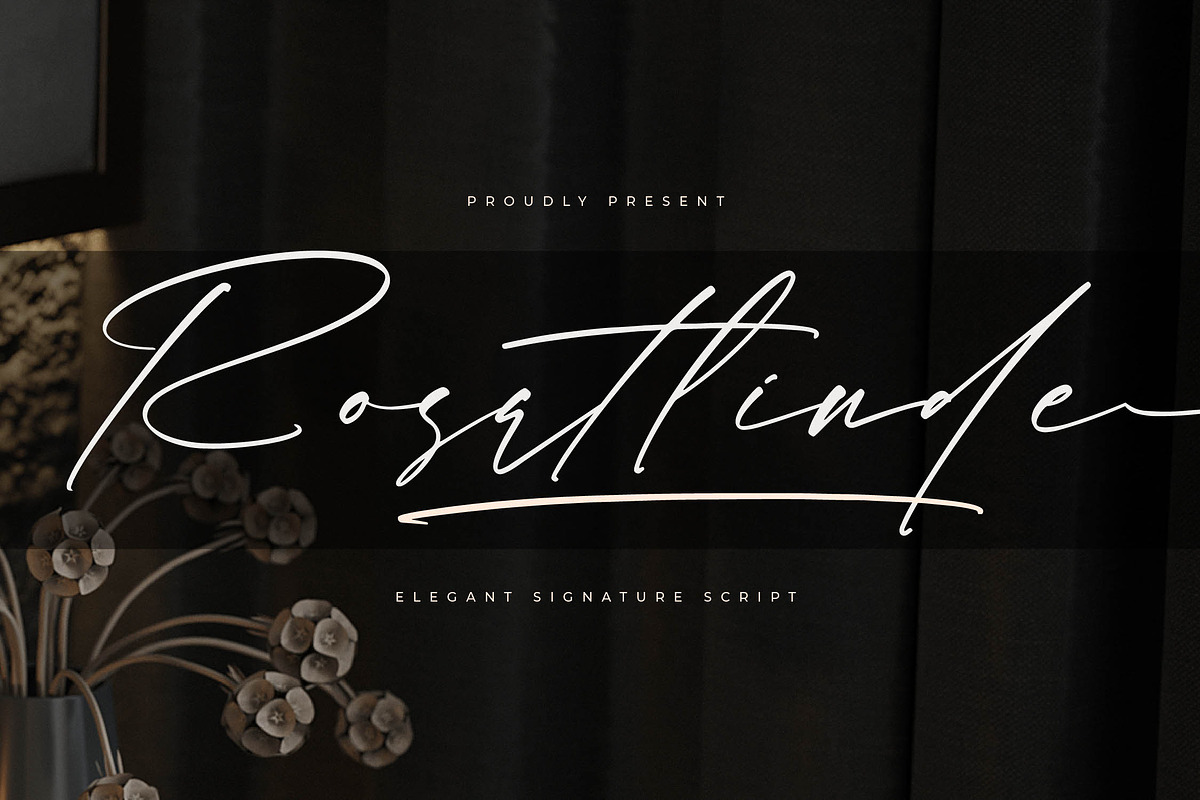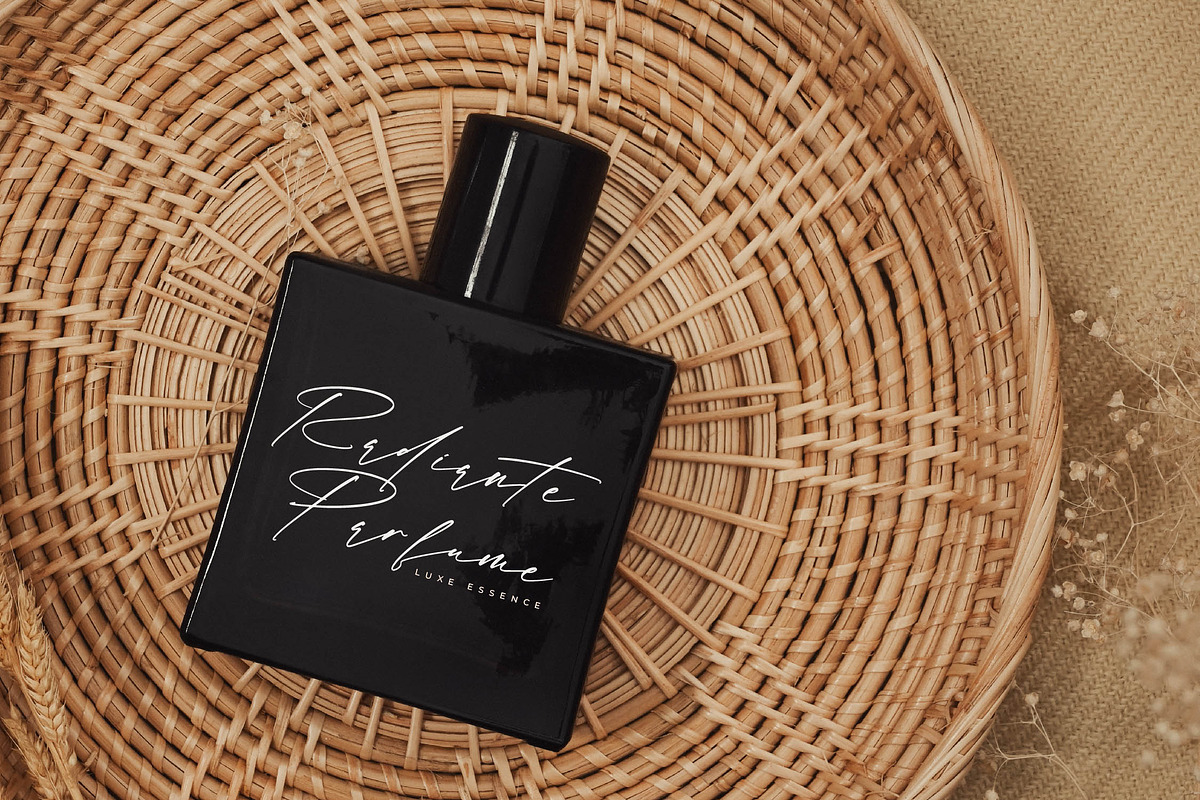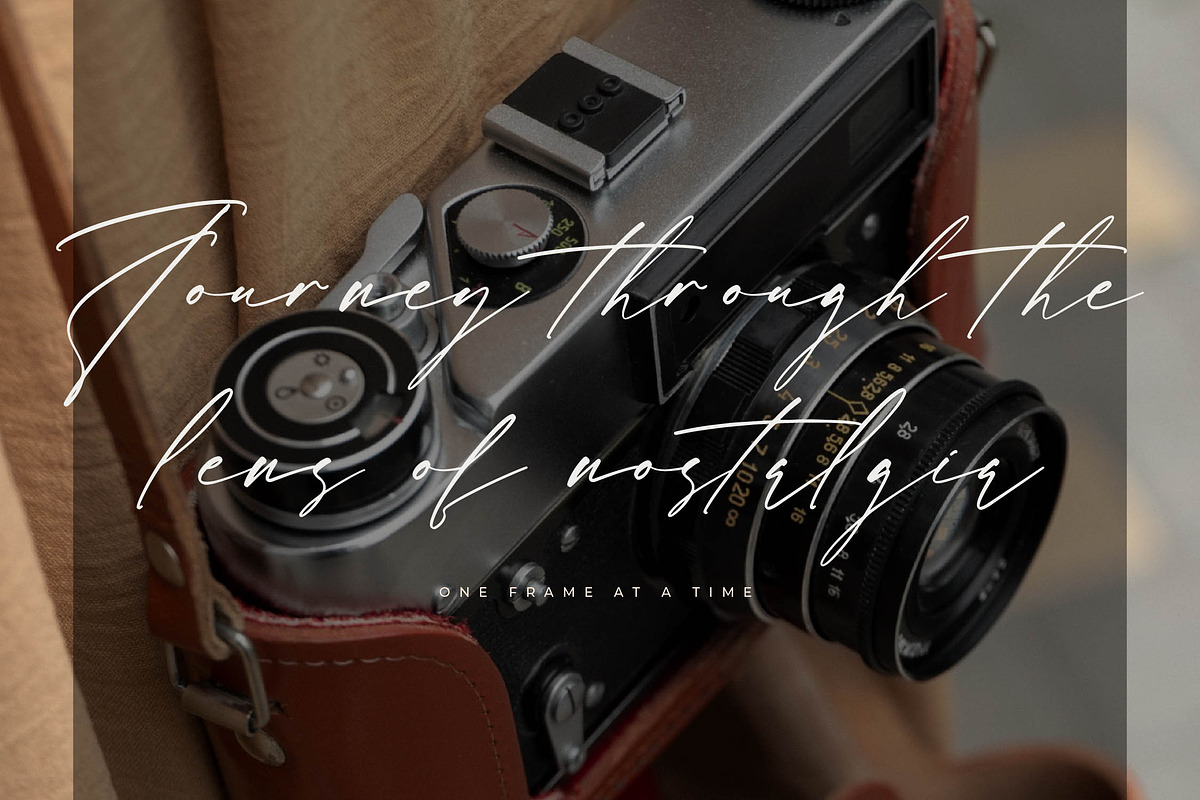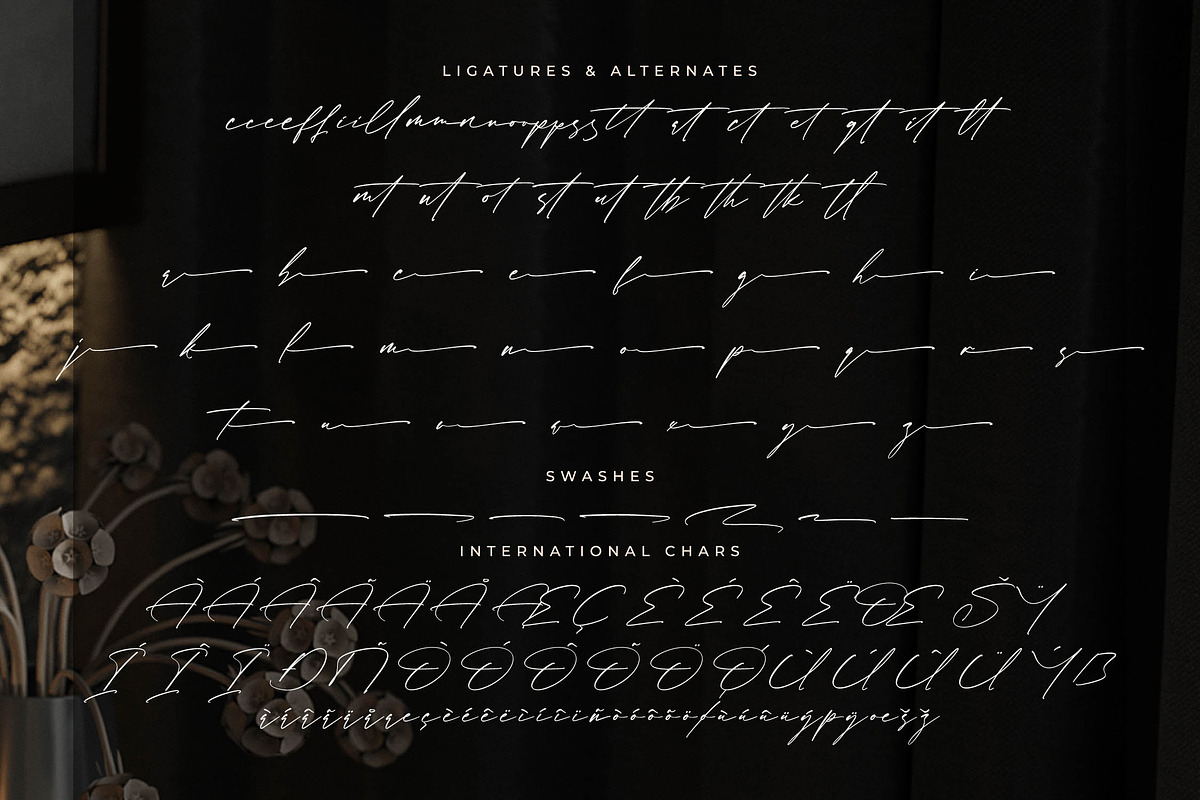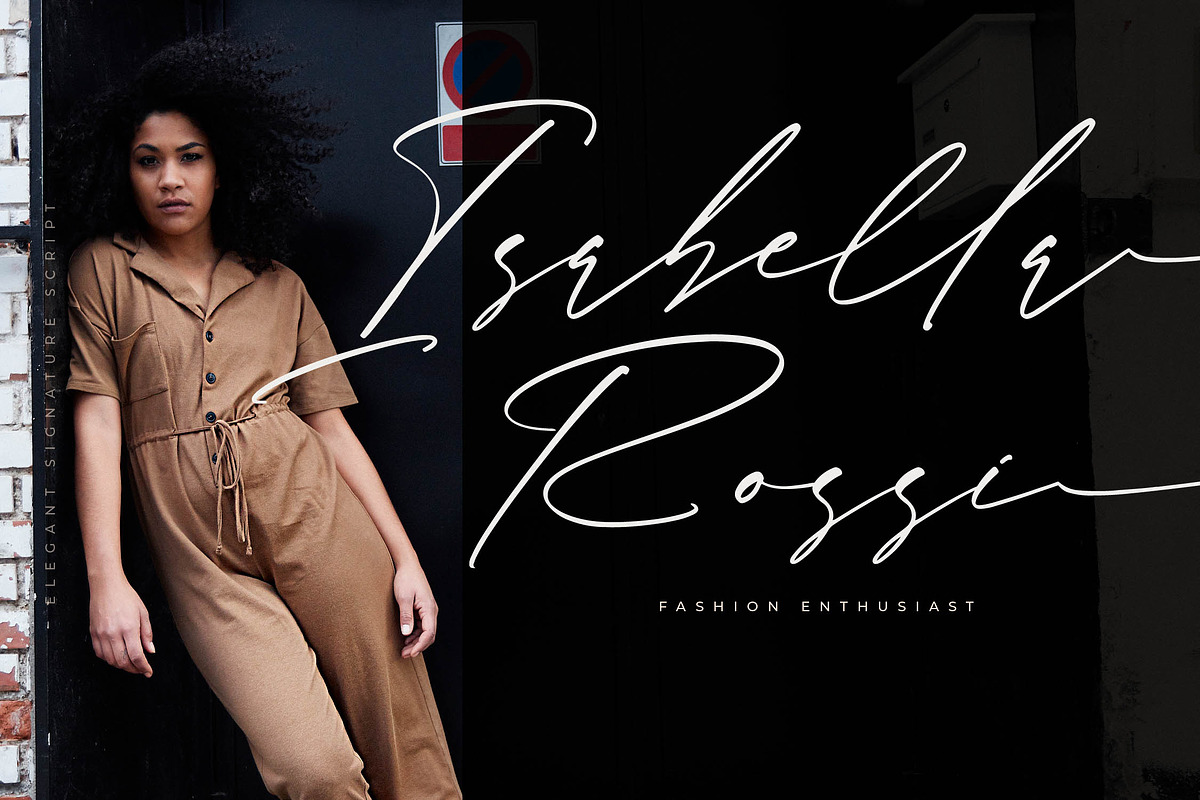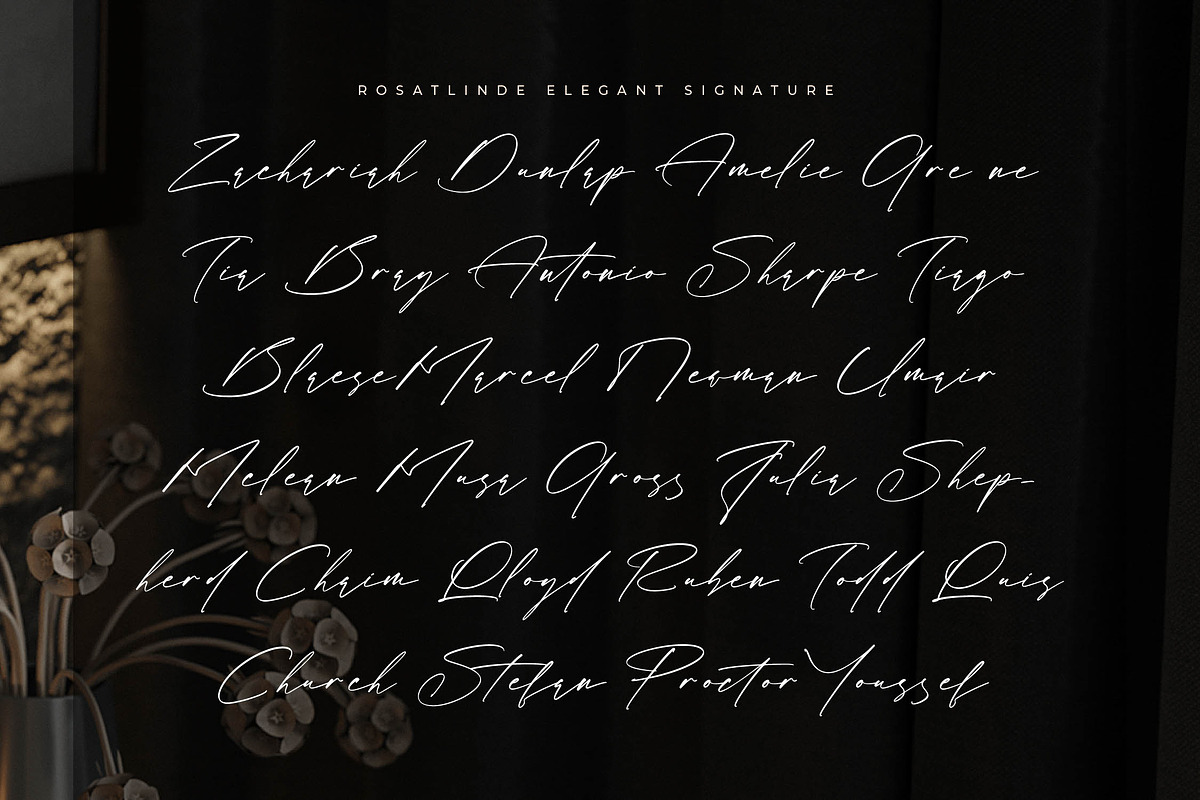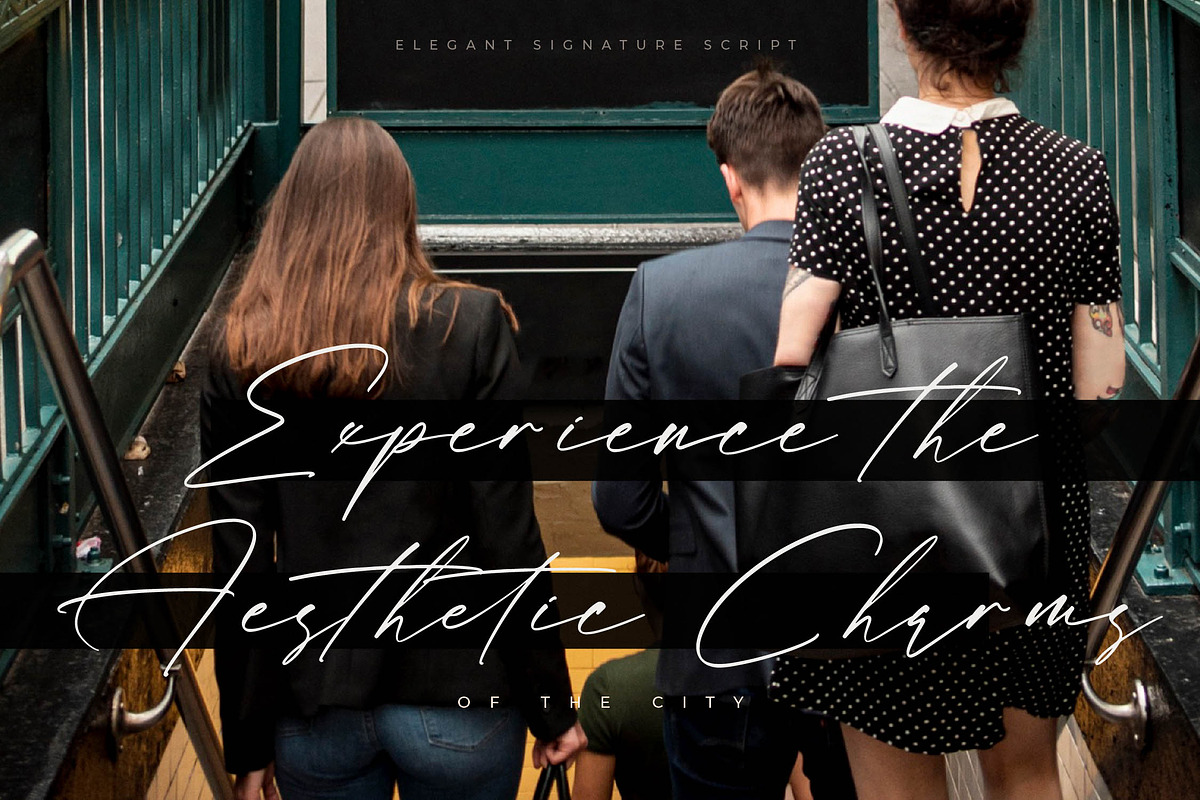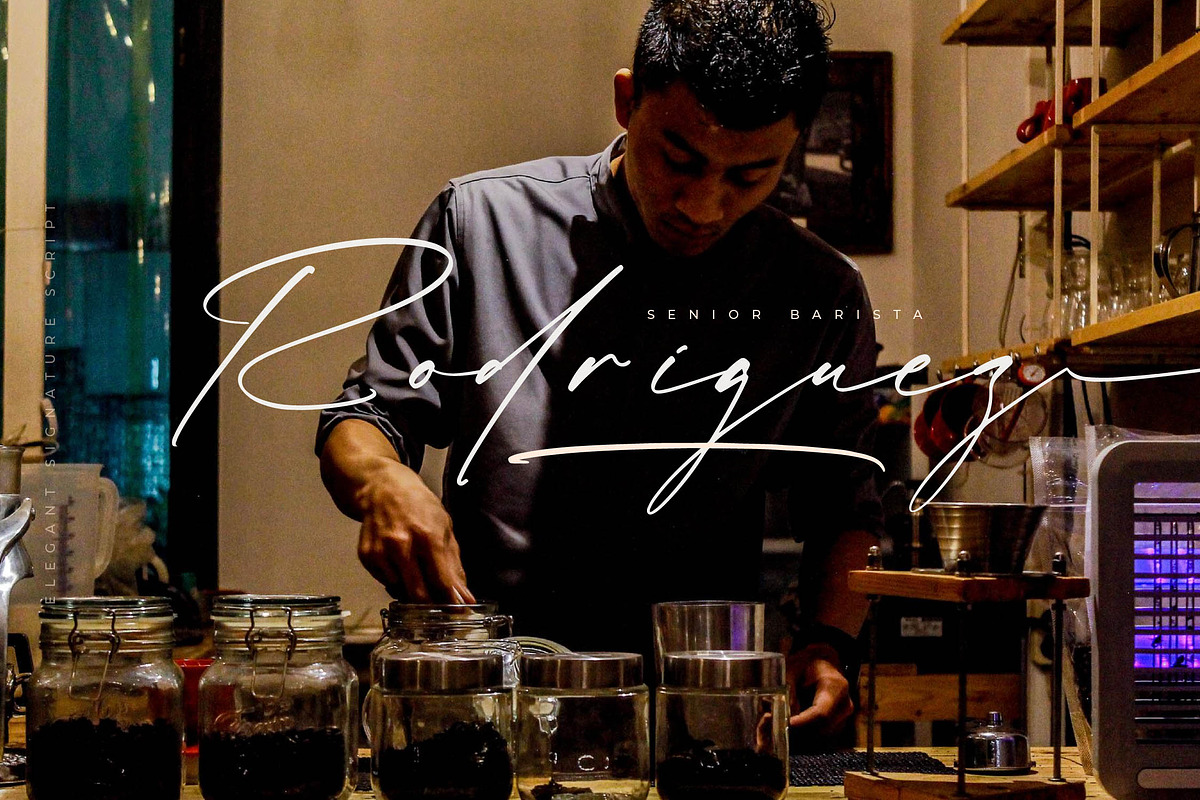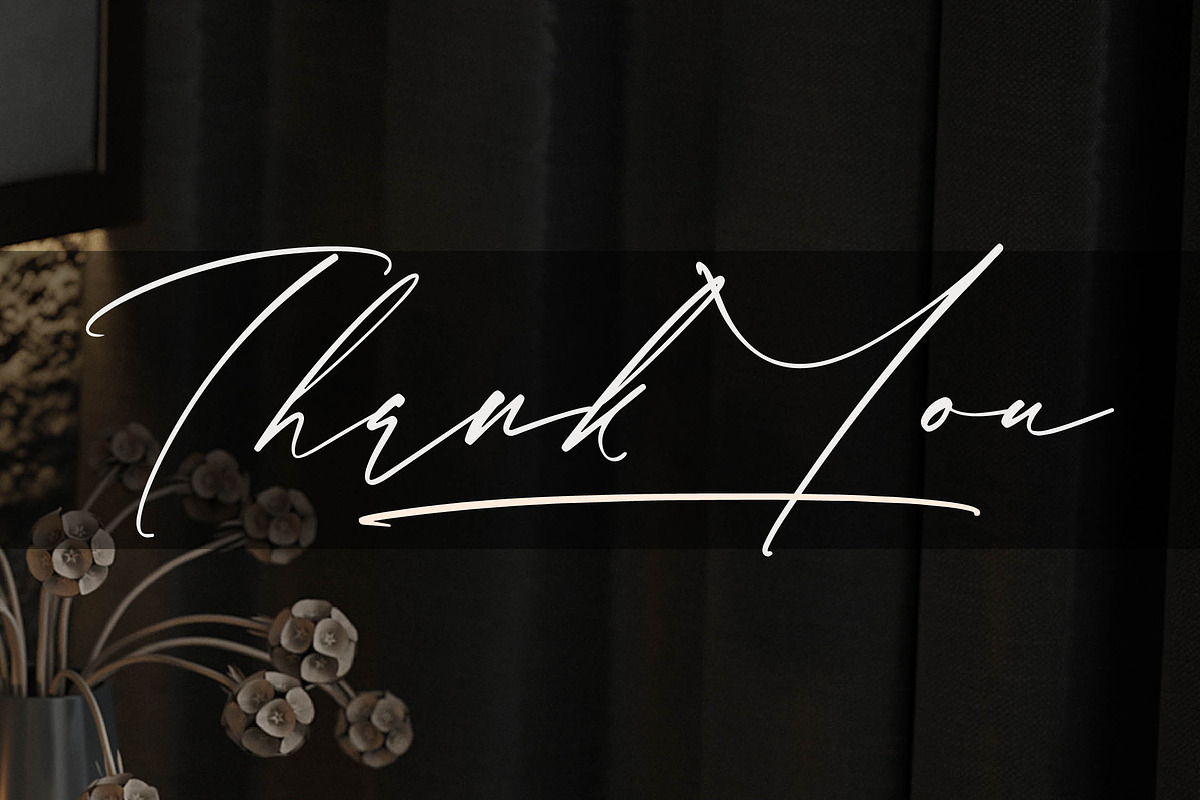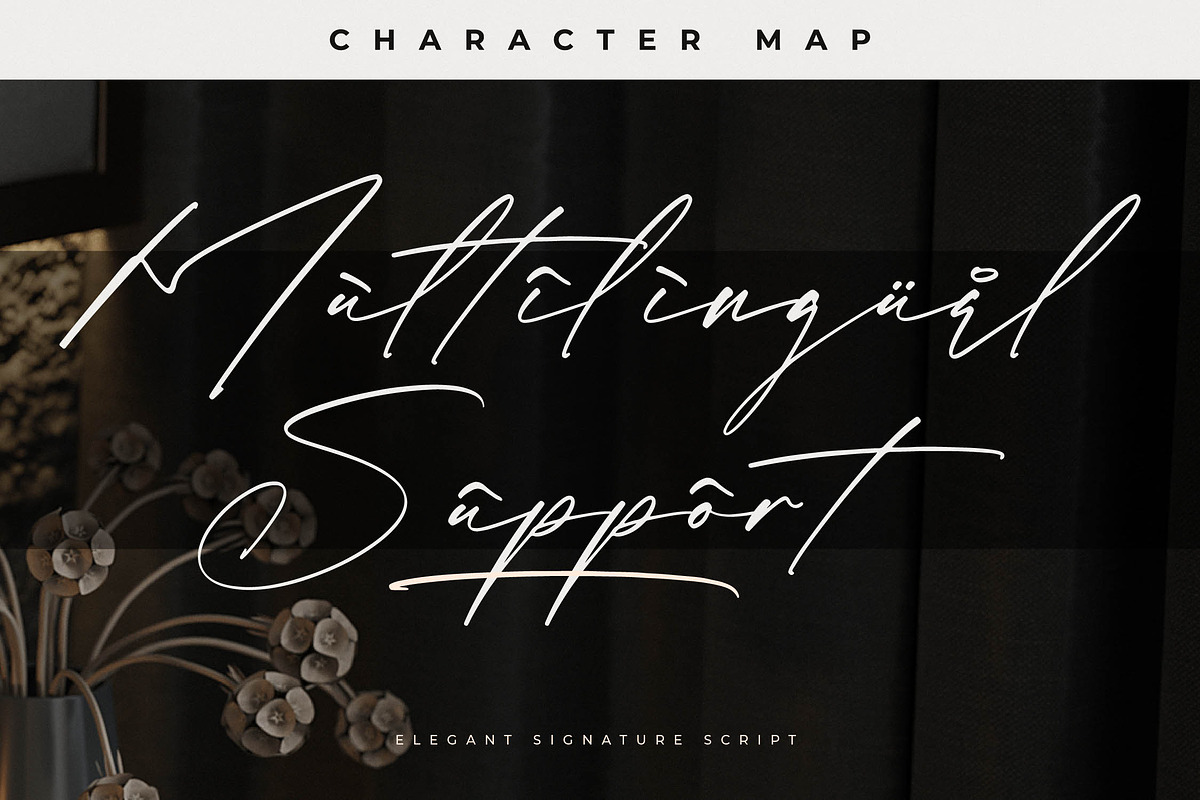
Rosatlinde Elegant Signature Script
Rosatlinde – Elegant Signature Script , from Letterena, is a Luxury Script font, suitable for any projects such as: logos, branding projects, homeware designs, product packaging, mugs, quotes, posters, shopping bags, t-shirts, book covers, name card, invitation cards, greeting cards, label, photography, watermark, special events, and all your other luxury and beautiful projects that need a Luxury Script taste.